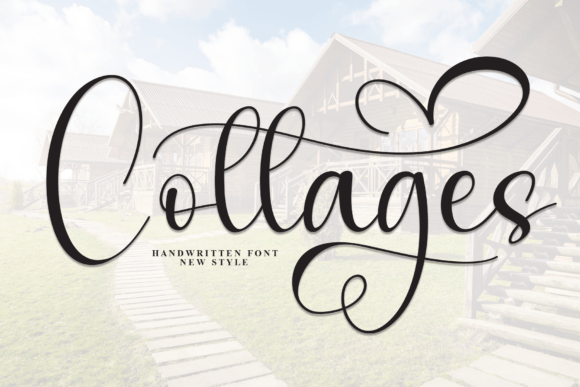
Cottages Font: A Uniquely Creative Typeface for Extraordinary Visual Experiences
In the realm of typography, a well-designed font can elevate a project from ordinary to extraordinary. Introducing Cottages Font, a modern lettering style that promises to deliver a uniquely creative and visually stunning experience. This versatile typeface is perfect for a wide range of applications, from wall displays and wedding invitations to social media post logos, advertisements, product packaging, and more.
Key Features of Cottages Font
- Uniquely Creative Design: Cottages Font boasts a distinctive and artistic design that sets it apart from traditional typefaces. Its modern lettering style is perfect for projects that require a touch of elegance and sophistication.
- Wide Range of Applications: This versatile font is suitable for various projects, including:
- Wall displays
- Wedding invitations
- Social media post logos
- Advertisements
- Product packaging
- Product designs
- Labels
- Photography
- Watermarks
- Invitations
- Stationery
The Benefits of Using Cottages Font
With Cottages Font, you can add a touch of elegance and sophistication to your projects. Its uniquely creative design and versatility make it an ideal choice for designers, artists, and businesses looking to create visually stunning content. Some of the benefits of using Cottages Font include:
- Enhanced Visual Appeal: Cottages Font’s modern lettering style and artistic design elements can elevate the visual appeal of your projects, making them stand out from the crowd.
- Increased Creativity: With Cottages Font, you can explore new creative possibilities and experiment with different design ideas, thanks to its versatility and wide range of applications.
- Time-Saving: The font’s simplicity and ease of use save you time and effort, allowing you to focus on other aspects of your project.
- Professional Results: Cottages Font’s high-quality design and compatibility with popular design software ensure professional results, even for those without extensive design experience.
Tips and Inspiration for Using Cottages Font
To get the most out of Cottages Font, consider the following tips and inspiration:
- Experiment with Different Sizes and Colors: Play with different font sizes and colors to create visually striking combinations that capture attention.
- Mix and Match with Other Fonts: Combine Cottages Font with other fonts to create unique and interesting typography.
- Use it for Branding and Identity: Cottages Font’s distinctive design makes it perfect for branding and identity projects, such as logos, business cards, and letterheads.
- Try it in Digital and Print Media: Use Cottages Font in both digital and print media, such as social media graphics, flyers, brochures, and posters.
In conclusion, Cottages Font is a uniquely creative typeface designed to deliver an extraordinary visual experience. Its modern lettering style, versatility, and wide range of applications make it an ideal choice for designers, artists, and businesses looking to create visually stunning content. With its ease of use, compatibility with popular design software, and long-term support, Cottages Font is a valuable addition to any design project.